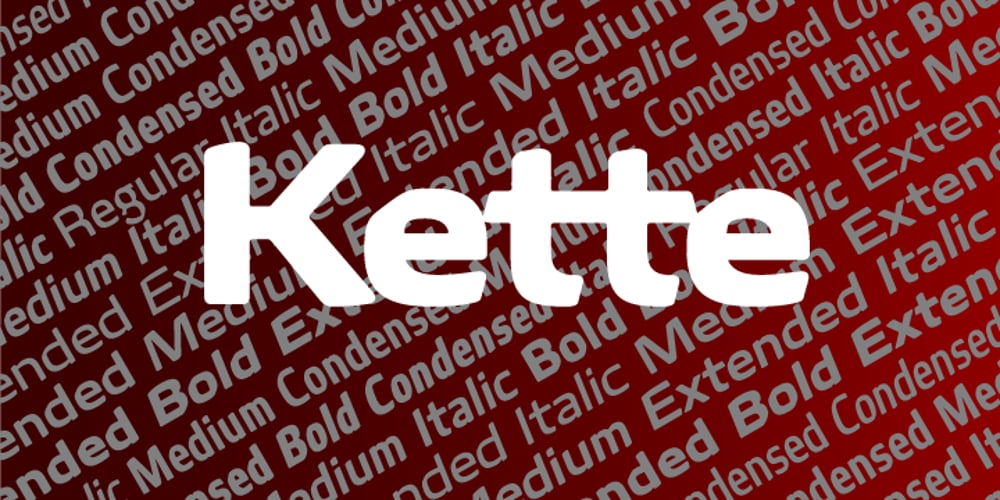
Kette Pro Font Family was designed by Gustavs Andrejs Grinbergs and published by Tilde. Kette Pro contains 19 styles and family package options. The design of Kette evolved from searching new ways to make cool and semi-formal type. Study of aspects of legibility was part of the process when designing Kette. It suits posters, slogans. Condensed, Regular and Extended styles of Kette allow fitting variable long text in headlines retaining the style and feel of the original design. This Pro font is packed with all European and Cyrillic alphabets, small caps, variable figure sets and features.